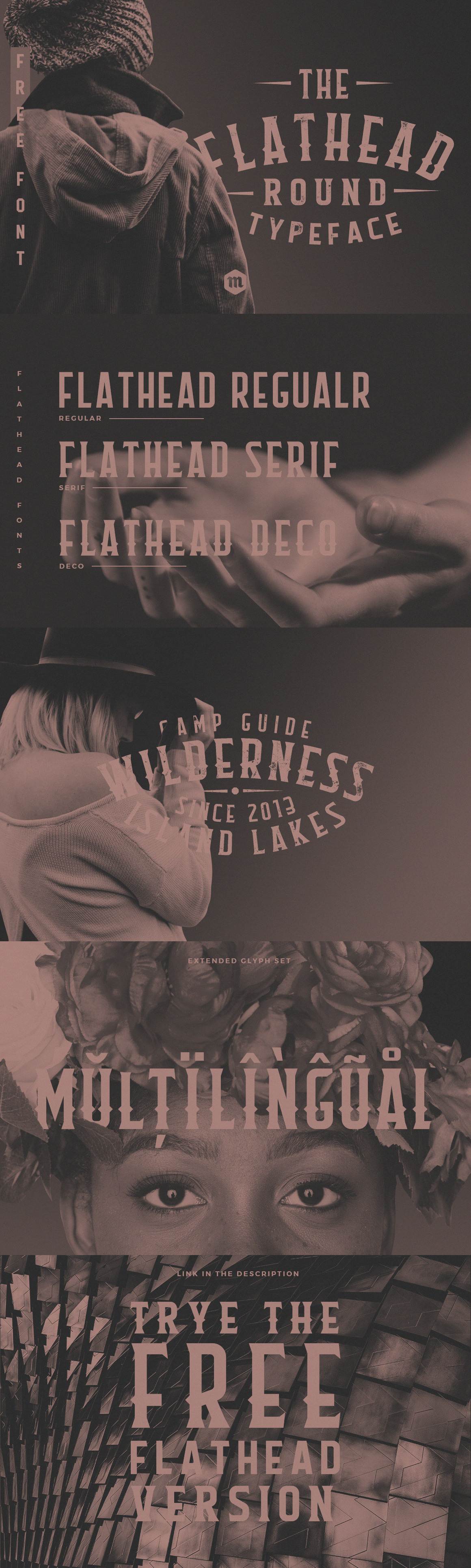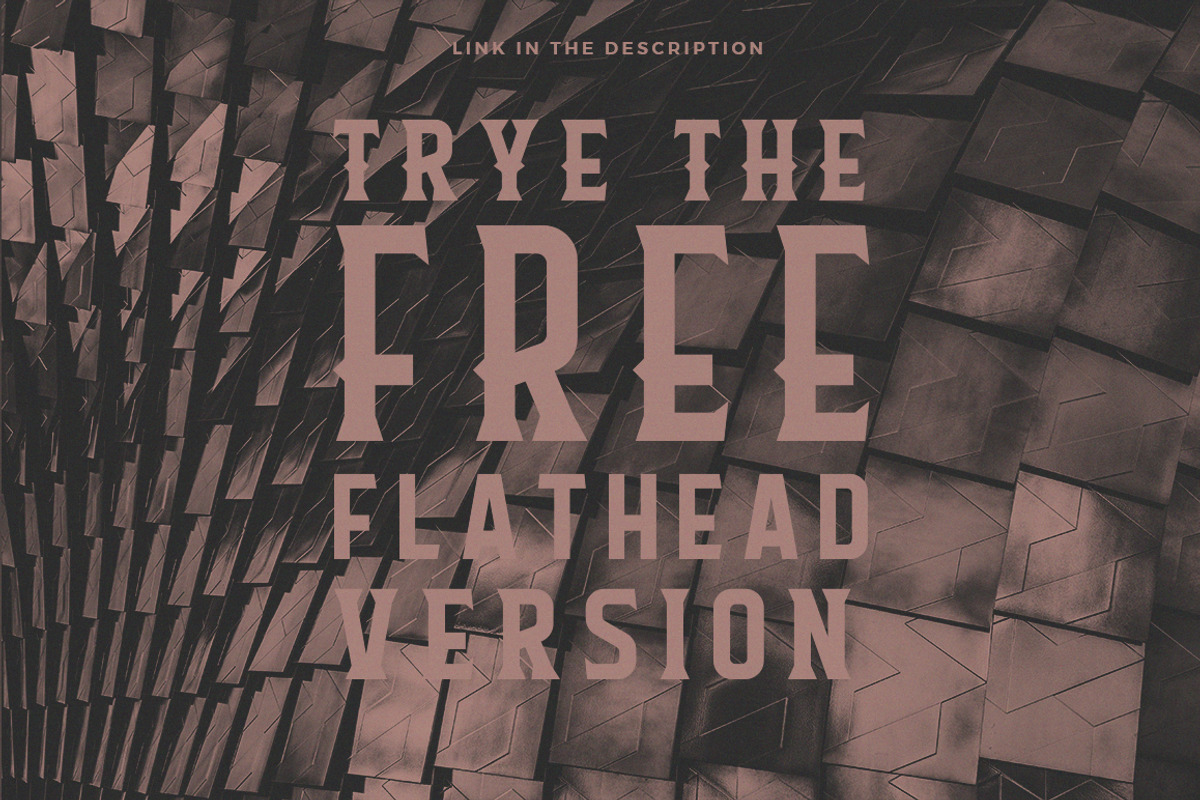
Flathead Round Vintag Typeface Font
Flathead Round is a 3 font family with a mono weight and different decorations.
Inspired by american western culture and tattoos, is perfect to use in vintage-themed designs. Flathead is suitable for any project that requires an old western feel as the core design elements; such as logo, wedding invitation, greeting card, poster, etc.
- Flathead Round Regular
- Flathead Round Serif
- Flathead Round Deco